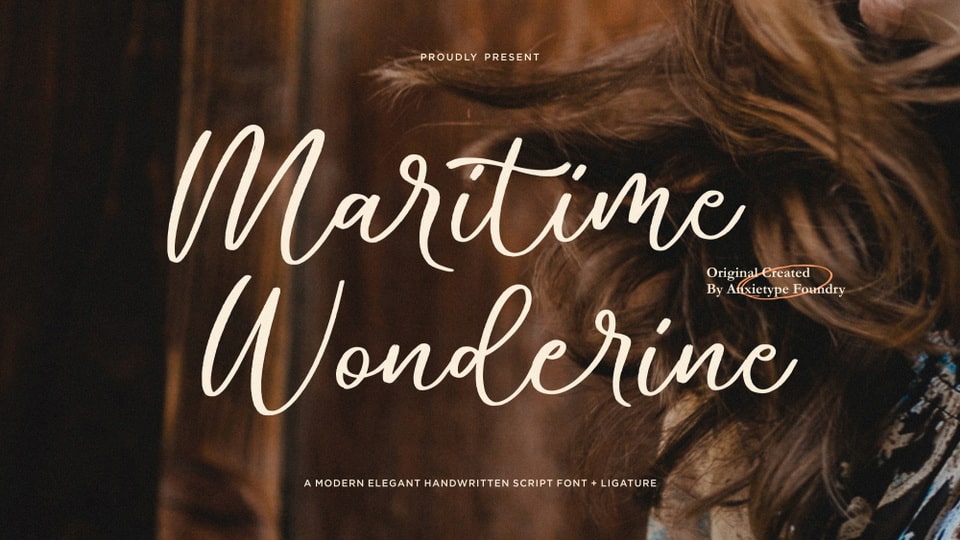
Download Maritime Wonderine font, an exquisite script typeface, crafted with enamoring elegance, truly a marvel to behold. Maritime Wonderine invites you into a dance of sophistication, effortlessly elevating any project that graces.
Designer: Anxietype Foundry